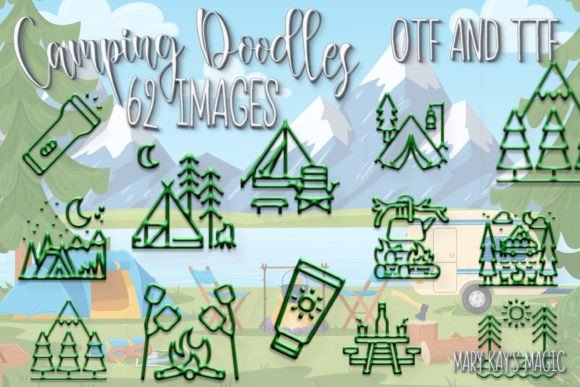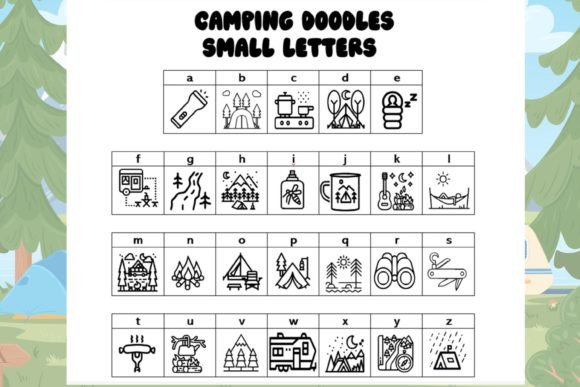
Camping Doodles Font
Want to get away? For many people, that means camping. You might like to go to the mountains, by a lake or a river, at the beach, in the desert, at a state or national park, or deep in the wilderness.
This entertaining camping doodles/dingbats font covers most parts of the camping experience: campers, trailers, tents, campfires, wood chopping, lanterns, flashlights, sleeping bags, compasses, trees, forests, mountains, desert, bug spray, sunscreen, camp chairs, picnic tables, marshmallows, sun and moon, plus rain on a tent, and a bandaid. There are a total of 62 images: 26 capital letters, 26 small letters, and 10 numbers.
Use the images for anything outdoor or camping related: greeting cards, postcards, scrapbooks, planners, journals, letters, compositions, social media posts, invitations, and posters, or combine them into your own unique clipart image. You can also recolor as you would any font or apply text effects.